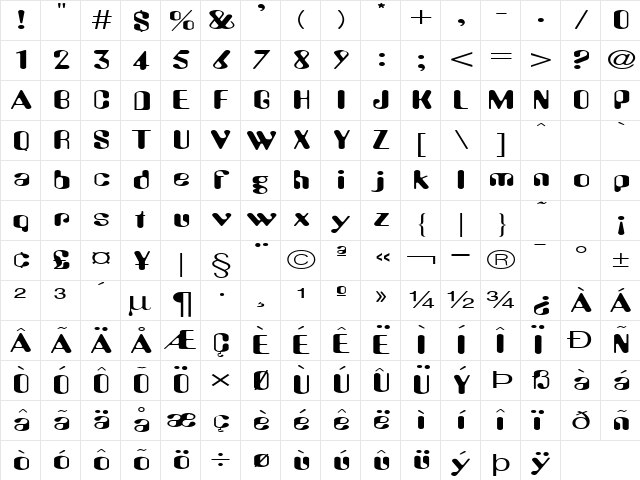
Amos Extended Normal
Design Context for Amos Extended Typeface
Amos Extended is a composed and adaptable typeface that performs quietly and consistently across a wide range of design contexts.